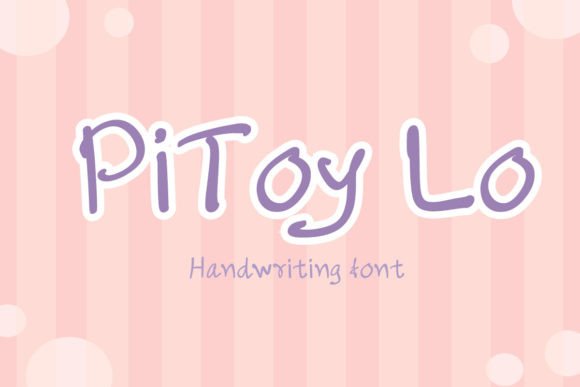
Dive into the whimsical world of Pitoy Lo, a captivating sans-serif font that will captivate your audience with its playful charm. Inspired by the magic of birthdays, this font is a joyful dance of strokes that will add a touch of warmth and cheer to any design. Let your creativity soar as you explore the endless possibilities that await within the realm of Pitoy Lo. Its versatility grants you the freedom to craft designs that range from playful birthday cards to heartfelt invitations, evoking smiles and spreading joy with every stroke. Embrace the allure of Pitoy Lo, and let your designs bloom with the beauty of heartfelt expression.